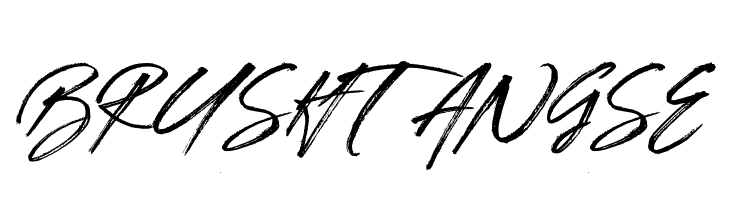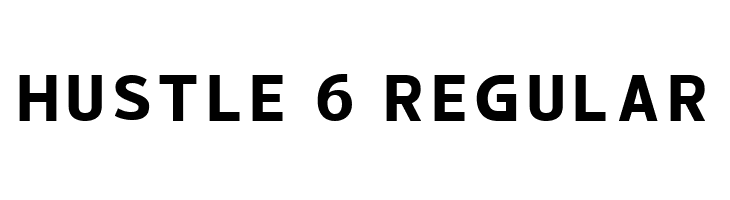
A bold, decorative font with intricate details and vintage flair.
A classic serif font with bold strokes and elegant curves.
A modern sans-serif font with clean lines and balanced proportions.
A dynamic and elegant script font with fluid, cursive strokes.
A modern serif font with elegant, refined letterforms and pronounced serifs.
A bold, geometric font with a futuristic and industrial aesthetic.
A tall, narrow serif font with high contrast and elegant, classic styling.
A cursive-inspired font with elegant, flowing strokes and calligraphic flair.
A bold, decorative font with modern flair and dynamic strokes.
A dynamic and flowing script font with elegant, cursive letterforms.